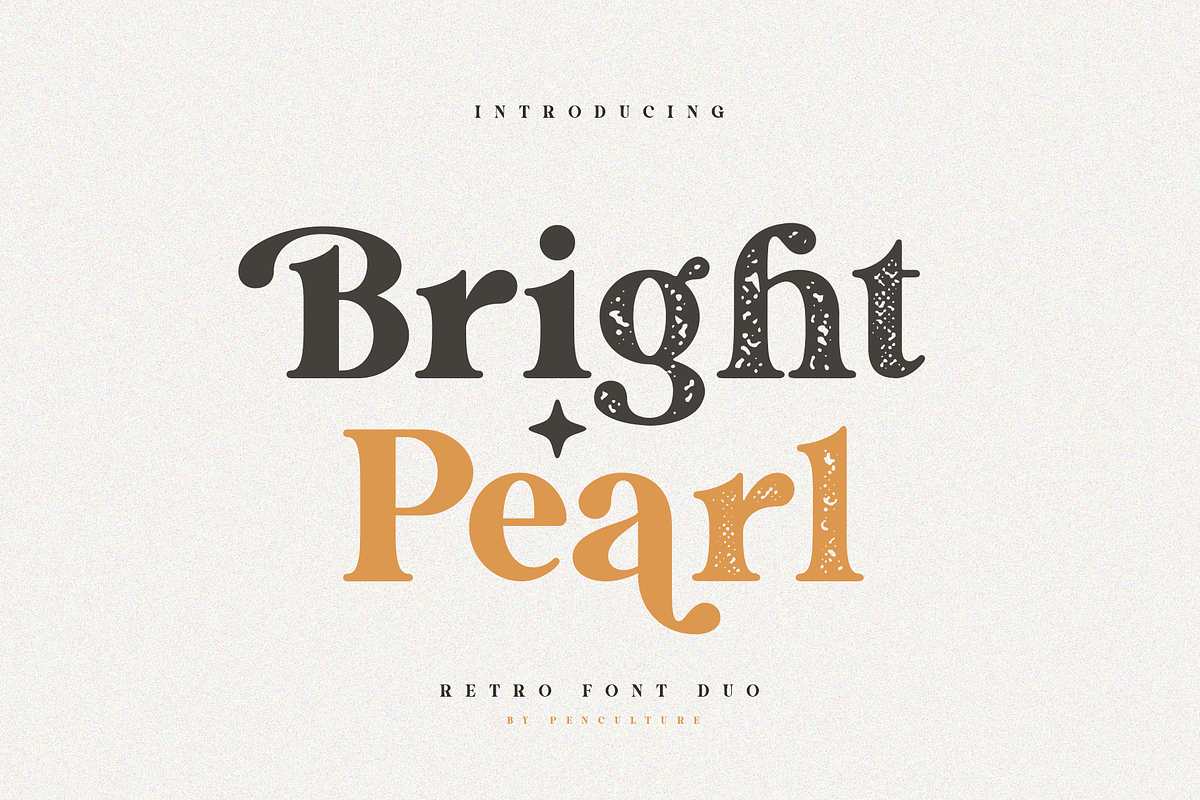
Bright Pearl Retro Serif Font Free Download is a stylish throwback to vintage typography, blending nostalgic charm with modern refinement. Featuring soft curves, unique ligatures, and bold serifs, this font is perfect for logos, fashion branding, packaging, posters, and editorial design that needs a retro yet polished vibe.
Its distinctive letterforms evoke a sense of elegance and playfulness, making Bright Pearl ideal for projects that aim to stand out while maintaining a timeless feel. From classic-inspired headlines to trendy social media content, this font delivers visual appeal with personality.